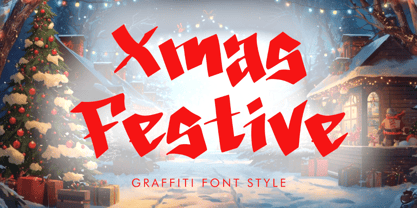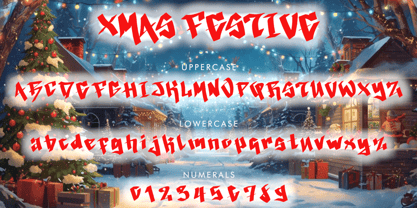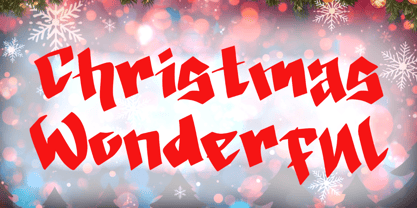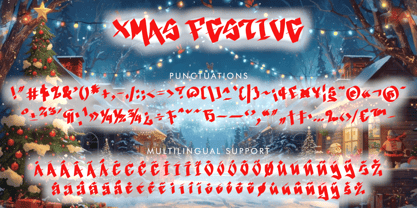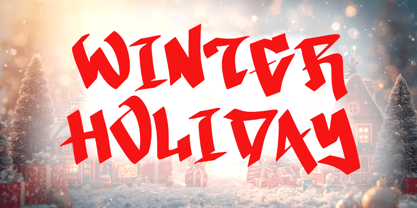
Xmas Festive
by Yoga Letter
The Xmas Festive Font Family was designed by Isroni Yoga Prasetya and published by Yoga Letter. Xmas Festive contains 1 styles. More about this family
"Xmas Festive" is a unique and elegant graffiti font. It features uppercase and lowercase letters, numerals, punctuation, and multilingual support. It's perfect for banners, posters, prints, logos, stickers, Christmas, winter, Halloween, fall, autumn, vacation, holiday, Teacher's Day, tattoos, stickers, spring, Valentine's Day, summer, back to school, Easter, and more.
Designers: Isroni Yoga Prasetya
Foundry: Yoga Letter